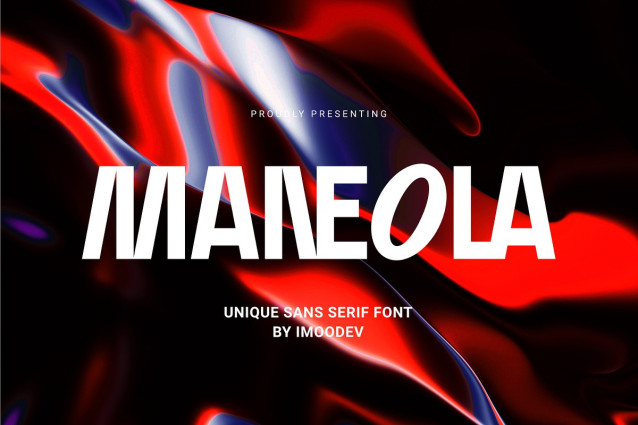
Maneola Font
Maneola Font is a geometric sans serif font, carefully designed to bring a modern and minimalist aesthetic to your design projects. Maneola is perfect for sleek corporate identity projects, futuristic tech projects, or minimalist editorial layouts.